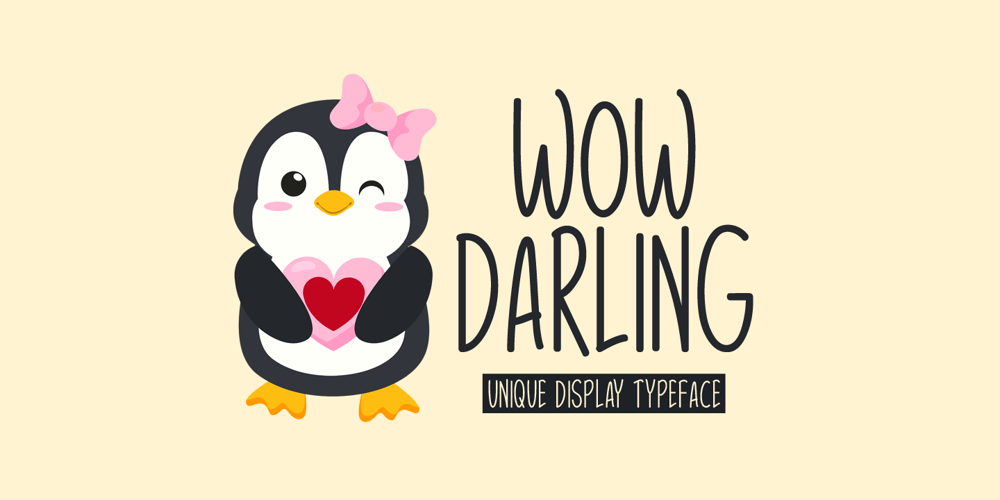
Wow Darling Font Family was designed by Md Shohail Bhuian and published by Seemly Fonts. Wow Darling contains 1 styles and family package options. Wow Darling is a narrow and simple handwritten font. It fits a wide range of casual or friendly designs. Whether you’re using it for crafting, digital designing, presentations, or greeting card making, it’s perfect!